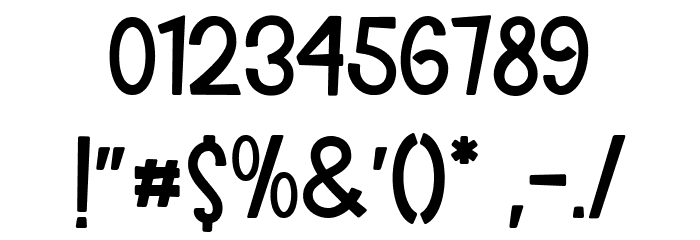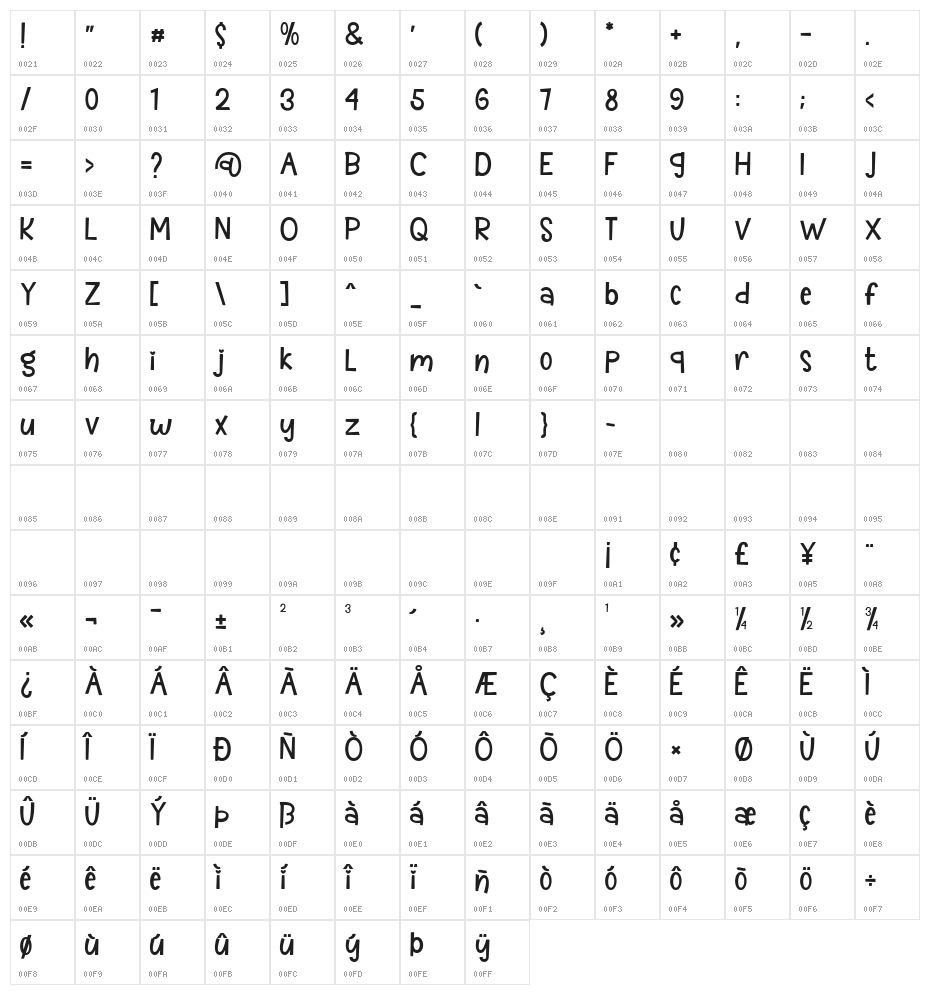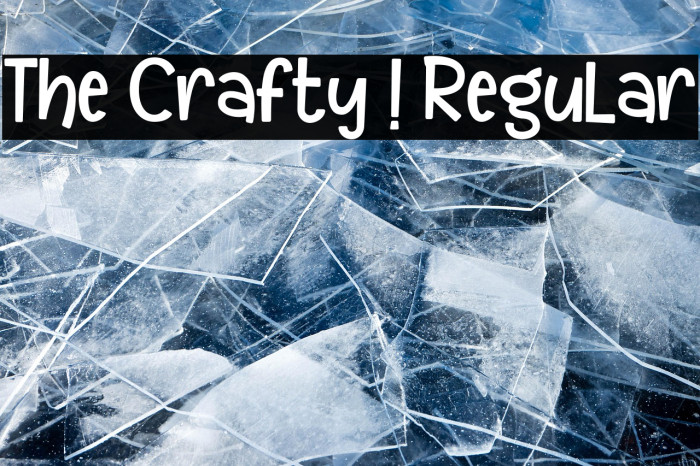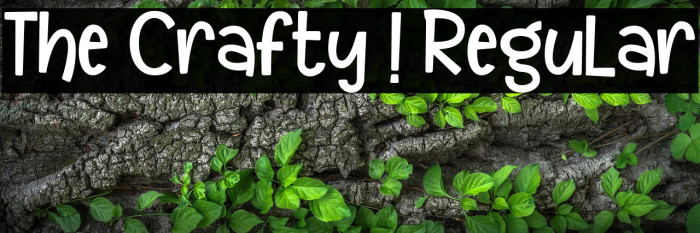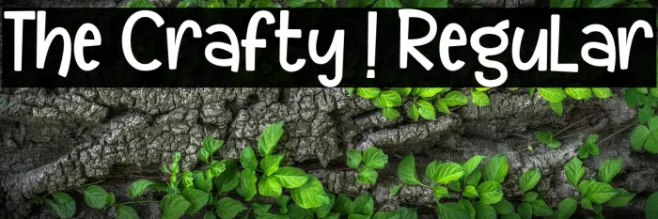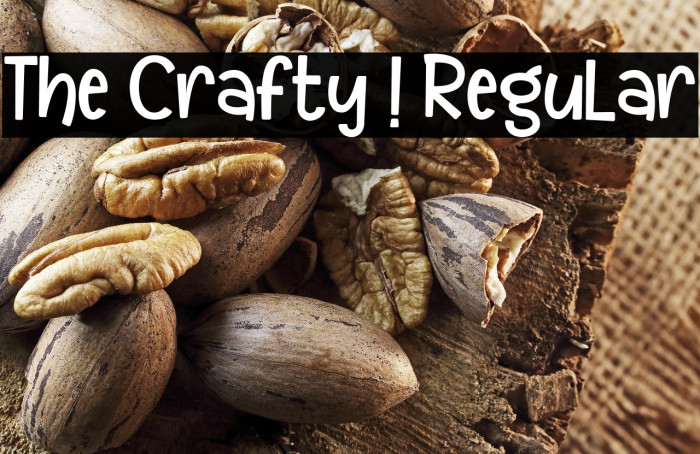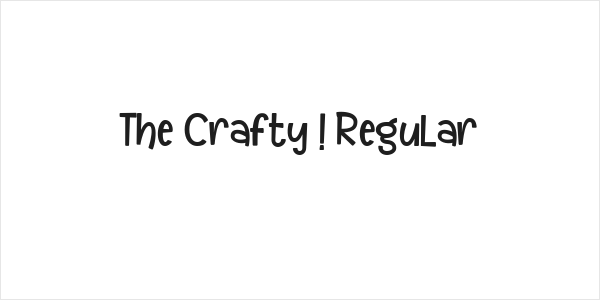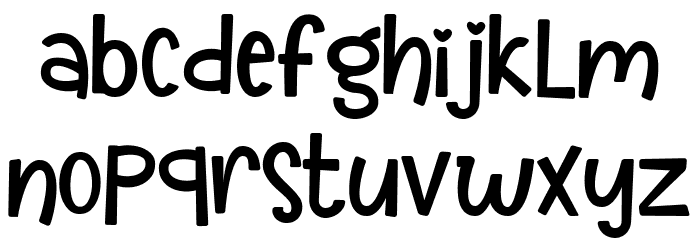
The Crafty ! Regular Font
The Crafty ! Regular Description
This playful and whimsical font features a hand-drawn style with irregular strokes that give it a casual and friendly appearance. The characters are slightly uneven, adding to its charm and making it ideal for creative projects. The uppercase letters are bold and prominent, while the lowercase letters maintain a consistent flow with a touch of quirkiness. Numbers and special characters are designed to match the overall playful theme, making this font versatile for various uses.
| Proposed Projects | Ideal for children's books, greeting cards, playful branding, and DIY craft projects. |